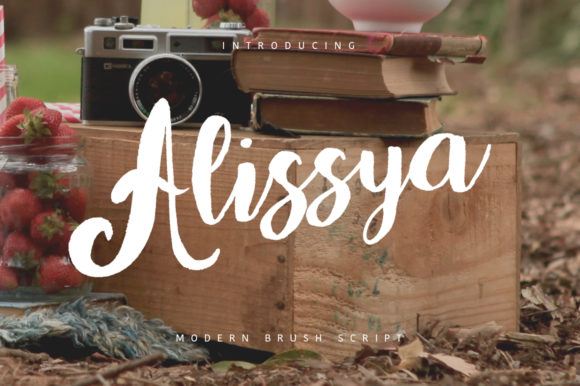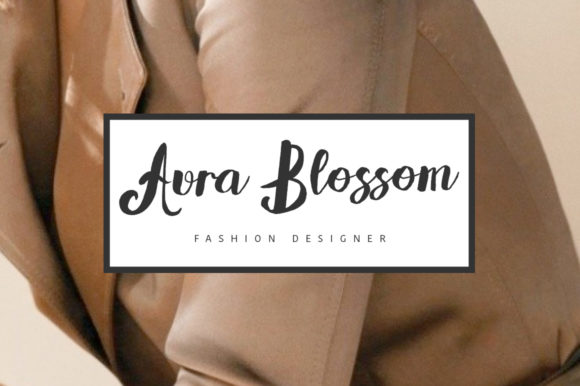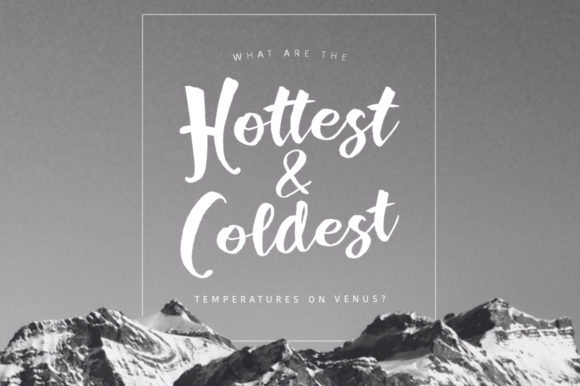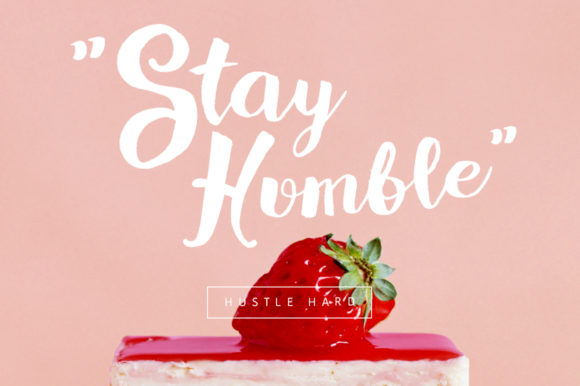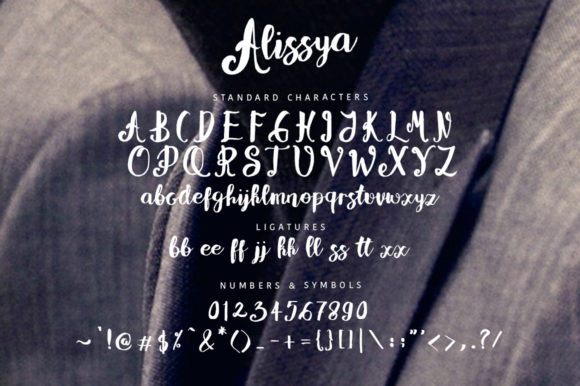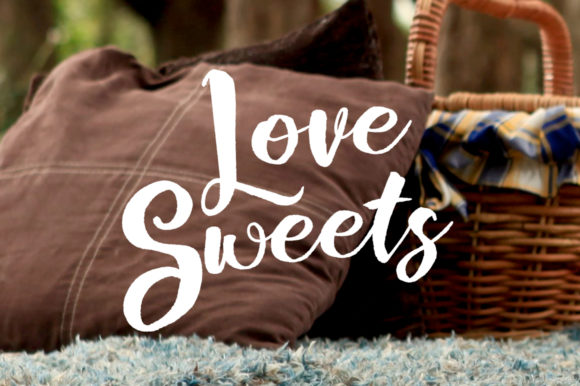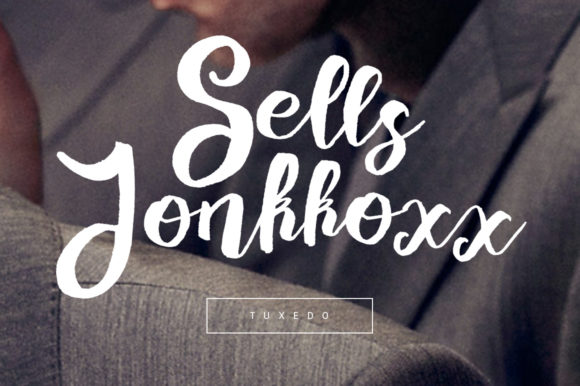
Alissya Font
About Alissya Font
Alissya boasts an unparalleled charm that effortlessly infuses any design with a touch of authenticity and warmth. Carefully handcrafted with an artistic eye, this font exudes a bold yet graceful demeanor, setting it apart from the rest. Its well-balanced characters and smooth lines make it a perfect fit for a diverse range of design endeavors.
With Alissya at your disposal, your creative possibilities are boundless. Whether you’re designing a logo, crafting typography quotes, revamping a magazine or book cover, or curating a captivating website header, Alissya’s versatility shines through in every application.
Its seamless integration into stationery, branding, packaging design, and clothing projects further solidifies Alissya as an absolute go-to font for designers seeking a touch of uniqueness and originality.
Moreover, the ingenious combination of contemporary elegance and an authentic brush feel makes Alissya a timeless treasure. Its charming essence truly stands out, leaving a mesmerizing impact on every viewer and reader.
As you embark on your design journey, rest assured that Alissya’s engaging and appealing aesthetic will turn heads and draw attention to your creations. From the moment you unveil your projects, audiences will be captivated by the character and soul that Alissya breathes into each letter.
So, elevate your designs with Alissya’s bold presence, confident in the knowledge that this splendid font will effortlessly elevate your art to new heights. Embrace the beauty of Alissya and let it be the signature style that sets your work apart in a world full of creative wonders!